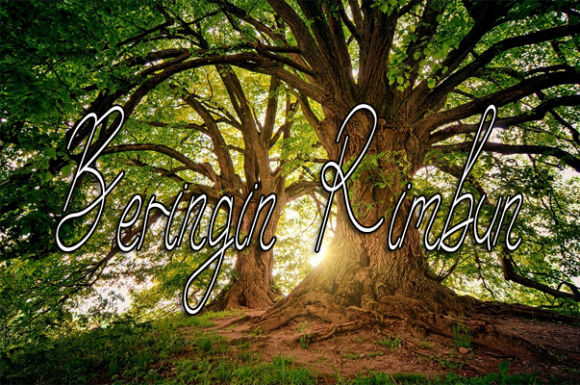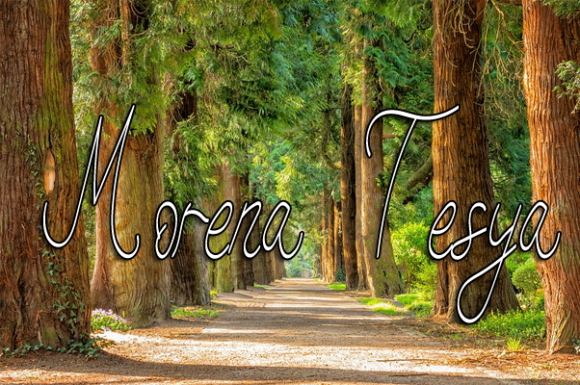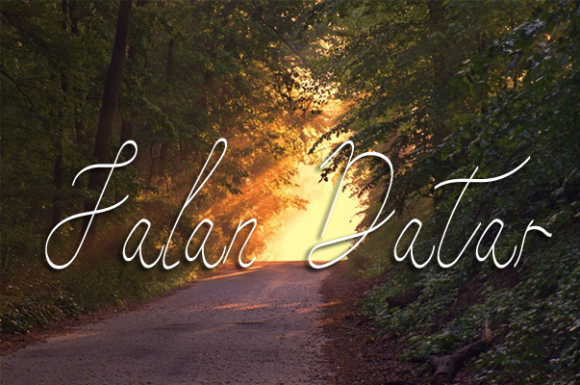
About Pinterstand Font
Pinterstand is a thin lettered and dainty handwritten font that features sweet and delicate swashes. This original look will appeal to a wide range of crafty ideas, from letterheads and titles, to stationery.